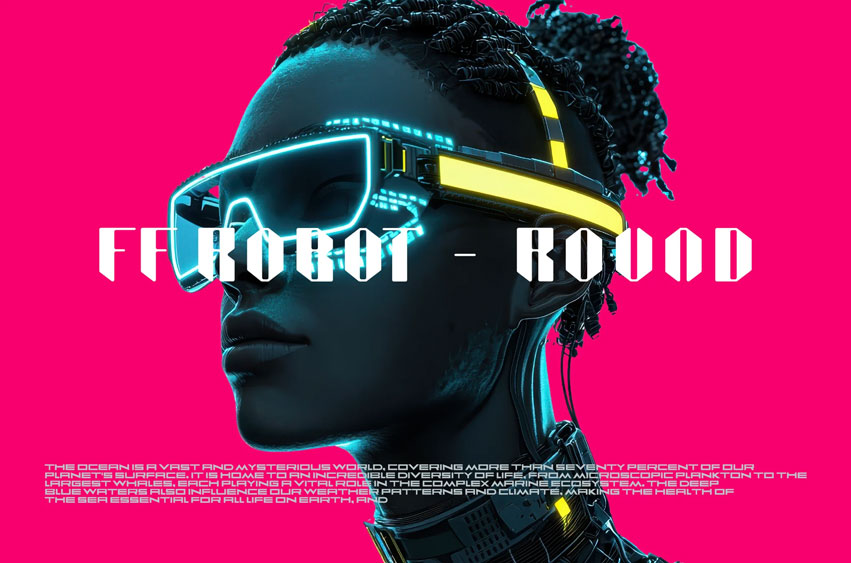
Robot Round Font
Robot Round Font Every curve is meticulously smoothed to resemble the polished casing of a handheld gadget.
Yet the overall silhouette remains grounded in a grid-based logic that appeals to the budding engineer’s sense of order and structure